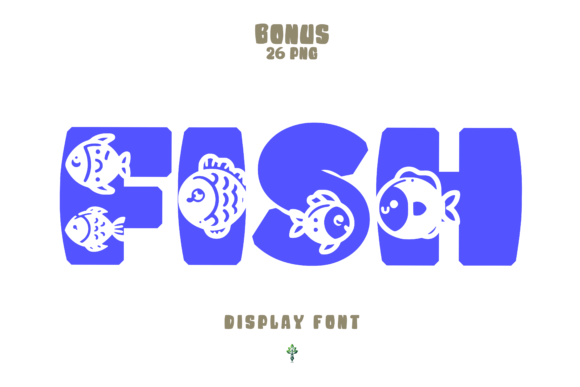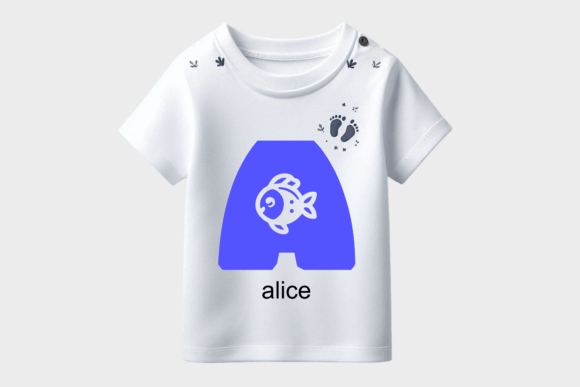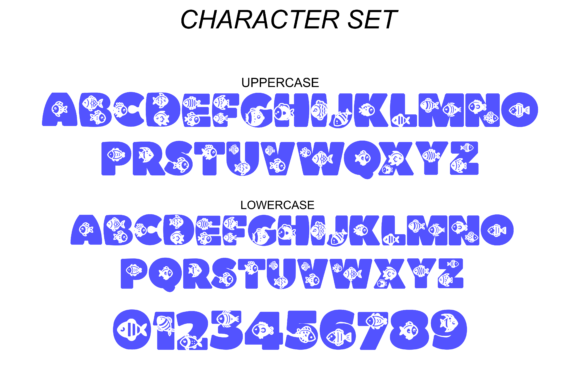
Unleashing Your Creative Potential with Fish Font
Do you remember that moment when a single font choice elevated your entire design project from good to great? It’s a feeling that’s hard to replicate, but one that we’re about to make even more magical with the enchanting Fish Font. This exceptional typeface is more than just a visual element – it’s a key to unlocking the full potential of your creative canvas.
Designed to captivate and inspire, Fish Font is a unique blend of elegance and intrigue that adds a touch of excitement to any narrative. Whether you’re a seasoned designer or a creative enthusiast, this typeface is sure to mesmerize your audience and enrich your artistic output with its lively spirit.
For designers, Fish Font is a valuable asset that can elevate your work to new heights. Its intricate details and captivating charm make it an ideal choice for anyone looking to create engaging and memorable designs.
Fish Font Key Features
- Unique Characteristics: Fish Font features a unique, hand-drawn design with a playful, whimsical feel, making it perfect for creative projects and branding.
Fish Font Review
Fish Font is an interesting take on the traditional font styles. It has a unique, stylized design that can add a touch of whimsy to any project. ✨ One of the standout features of this font is its versatility – it can be used for a variety of applications, from logos to headings to body text. The bold and playful style works particularly well for designs that need a splash of personality.
- ✨ Unique and stylized design that adds a touch of whimsy to any project.
- ✨ Versatile font that can be used for a variety of applications.
- ✨ Bold and playful style that works well for designs that need a splash of personality.
However, there are some limitations to consider. ⚠️ The font may not be suitable for projects that require a more formal or professional tone, as its playful style may come across as immature. Additionally, the font’s stylized design may not be legible at smaller font sizes, which could make it difficult to read in certain contexts.
Overall, I would say that Fish Font is a solid choice for designers who are looking for a unique and playful font. While it may have some limitations, its versatility and bold style make it a great option for a variety of projects. Just be sure to use it wisely and consider the context in which it will be used.
Some tips for getting the most out of Fish Font include:
- Using it to add a whimsical touch to your designs.
- Creating a bold and eye-catching headline.
- Adding a playful touch to your branding or marketing materials.
Common use cases for Fish Font include:
- Children’s book illustrations.
- Food or restaurant branding.
- Whimsical or fantasy-themed designs.